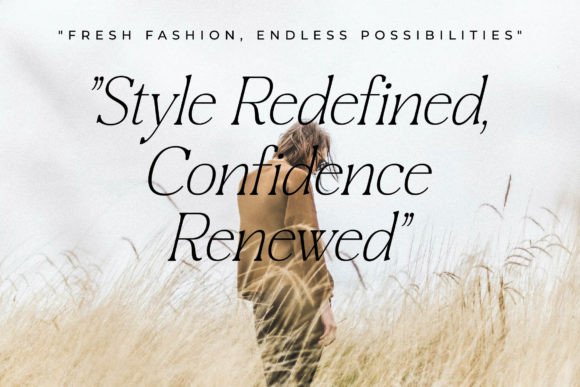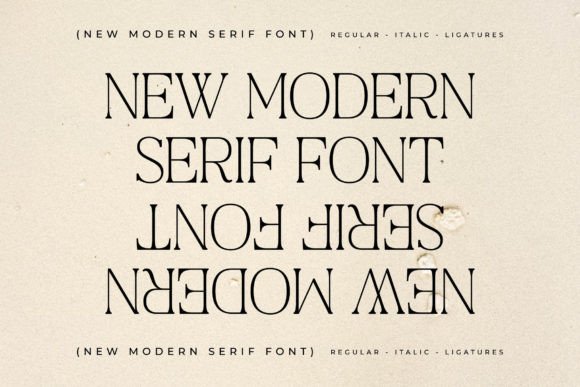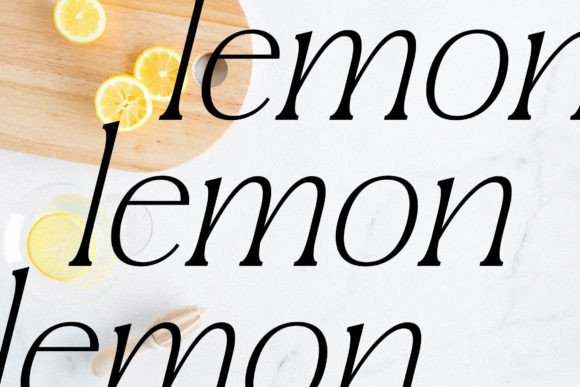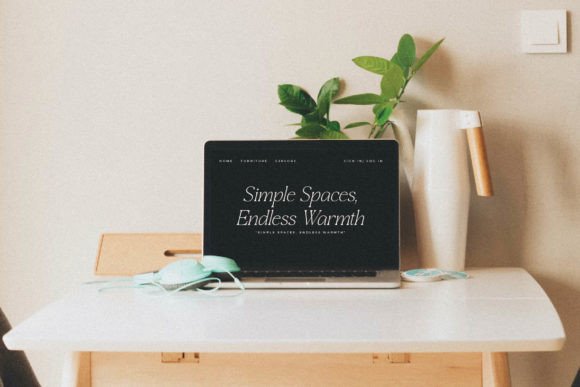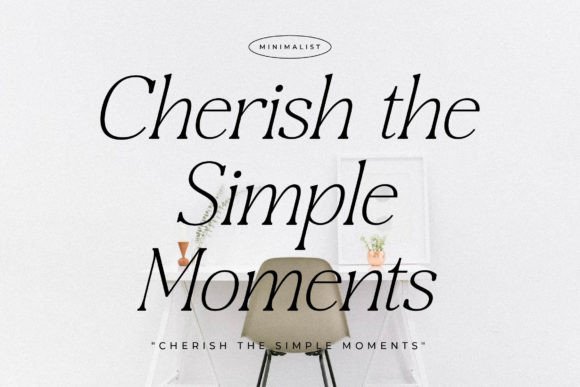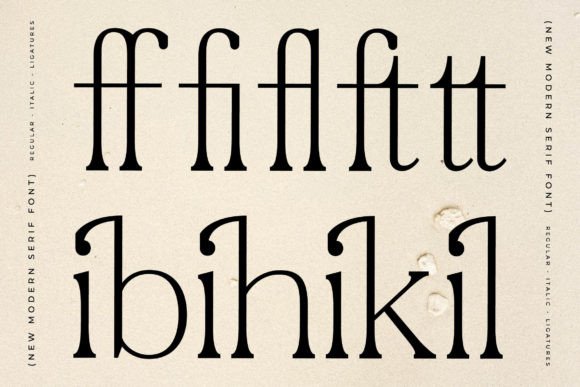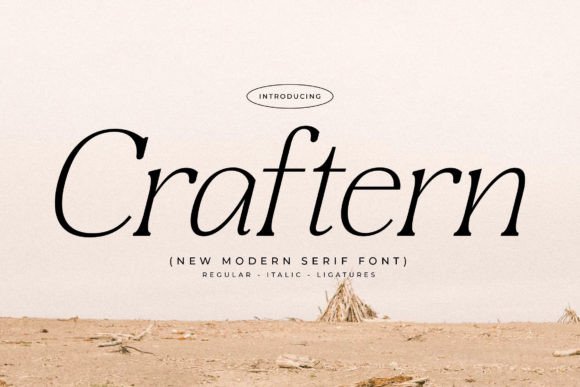
Craftern Font: Elevate Your Designs with Elegance and Sophistication
In the world of typography, a font can make or break a design. For designers and crafters looking for a typeface that exudes modernity and classic sophistication, Craftern Font is an exceptional choice. This versatile font is designed to bring an air of elegance and luxury to various design projects, from logos and titles to fashion branding and editorial content.
The Essence of Craftern Font
Craftern is not just another typeface; it’s a modern and classic font that boasts its own unique style and contemporary look. Its design is meticulously crafted to cater to the needs of designers who are on the lookout for a font that can add a touch of sophistication and refinement to their work. Whether you’re working on a luxury brand’s logo, a movie title, a fashion magazine, or even a clothing brand’s typography, Craftern Font is engineered to exceed your expectations.
One of the standout features of Craftern Font is its incredible versatility. It’s a font that can seamlessly transition across various mediums and applications. Here are some of the areas where Craftern truly shines:
• Elegant & Luxurious Logos: For brands aiming to make a statement of luxury and sophistication, Craftern can help create a memorable logo that stands out.
• Book or Movie Title Design: Adding a touch of elegance to book covers or movie titles, Craftern makes your project stand out on shelves or screens.
• Fashion Brand: Perfect for fashion brands that want to communicate luxury, style, and class through their typography.
• Magazine: Ideal for magazine headings, articles, or any feature that requires a sophisticated touch.
• Clothes: For clothing brands, especially those dealing in luxury or bespoke items, Craftern can add a premium feel to their branding.
• Lettering and Quotes: Its clear and elegant design makes it perfect for lettering projects and typographic quotes.
Why Choose Craftern Font?
Choosing Craftern Font for your design project comes with numerous benefits:
• Unique Style: It offers a unique style that can set your design apart from the rest.
• Modern yet Classic: Balances modern design elements with classic typography sensibilities.
• Elegance: Brings an unmatched level of elegance to your designs.
• Legibility: Despite its elegant design, it maintains high legibility, making it suitable for a wide range of applications.
Tips for Using Craftern Font
To maximize the potential of Craftern Font, consider the following tips:
• Pair it Wisely: When pairing Craftern with other fonts, opt for simplicity to maintain the focus on its elegant design.
• Adjust Size and Weight: Experiment with different sizes and weights to create visual hierarchy and add depth to your design.
• Consider the Context: Ensure that the font style complements the overall theme and message of your project.
Craftern Font is more than just a typeface; it’s a design statement that can elevate your projects to new heights of elegance and sophistication. Its modern yet classic appeal, combined with its versatility, makes it an indispensable tool for designers and crafters looking to leave a lasting impression. Whether you’re designing a luxury brand’s logo, a movie title, or a fashion magazine, Craftern Font is your gateway to creating visually stunning and impactful designs.